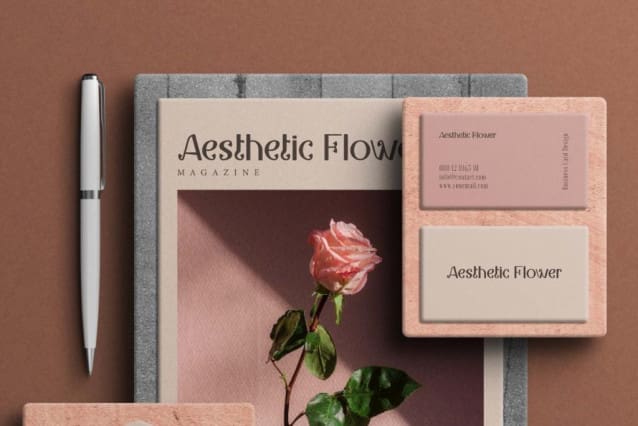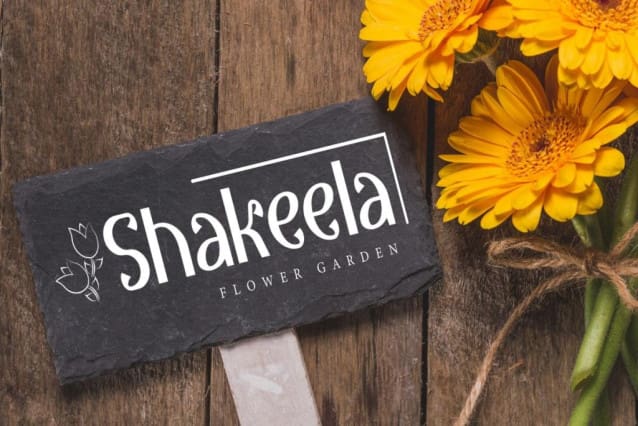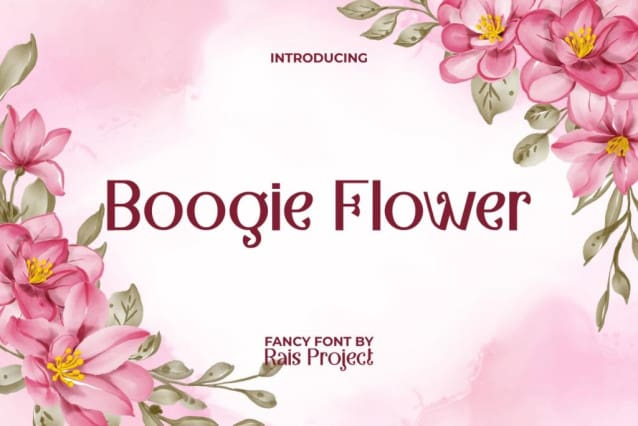
Boogie Flower Font
Boogie Flower Font is a beautiful stylish display font. This font has a unique shape in each character that shows a flower petal in bloom and still easy to read. It will be good for advertisement, brand image, business card, cover, custom design, invitation, label, magazine, menu, poster, product packaging, quote, web, and more!
Boogie Flower Font includes a full set of Uppercase and Lowercase Letters, Numerals, Punctuation, and Symbol. This adorable font will be suitable for various industries, such as beauty products, cafe, event or wedding organizer, fashion, festival, florist, printing, publishing, etc.